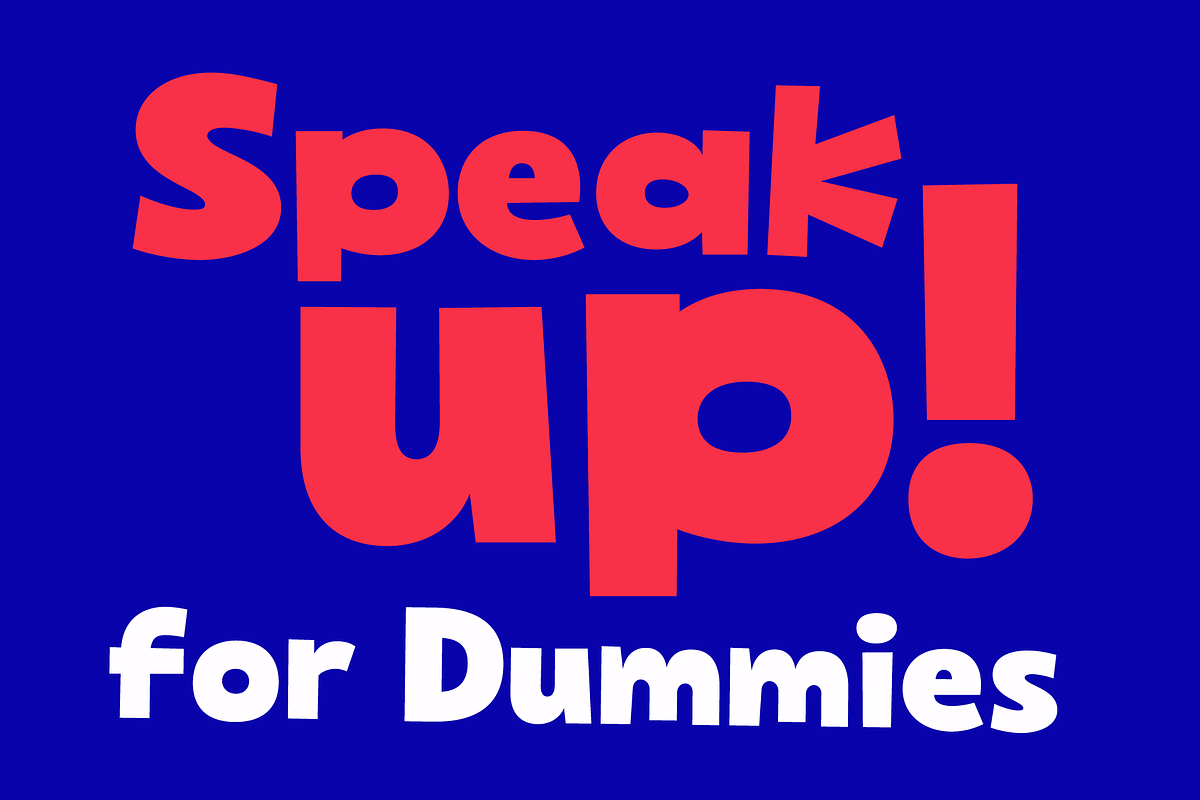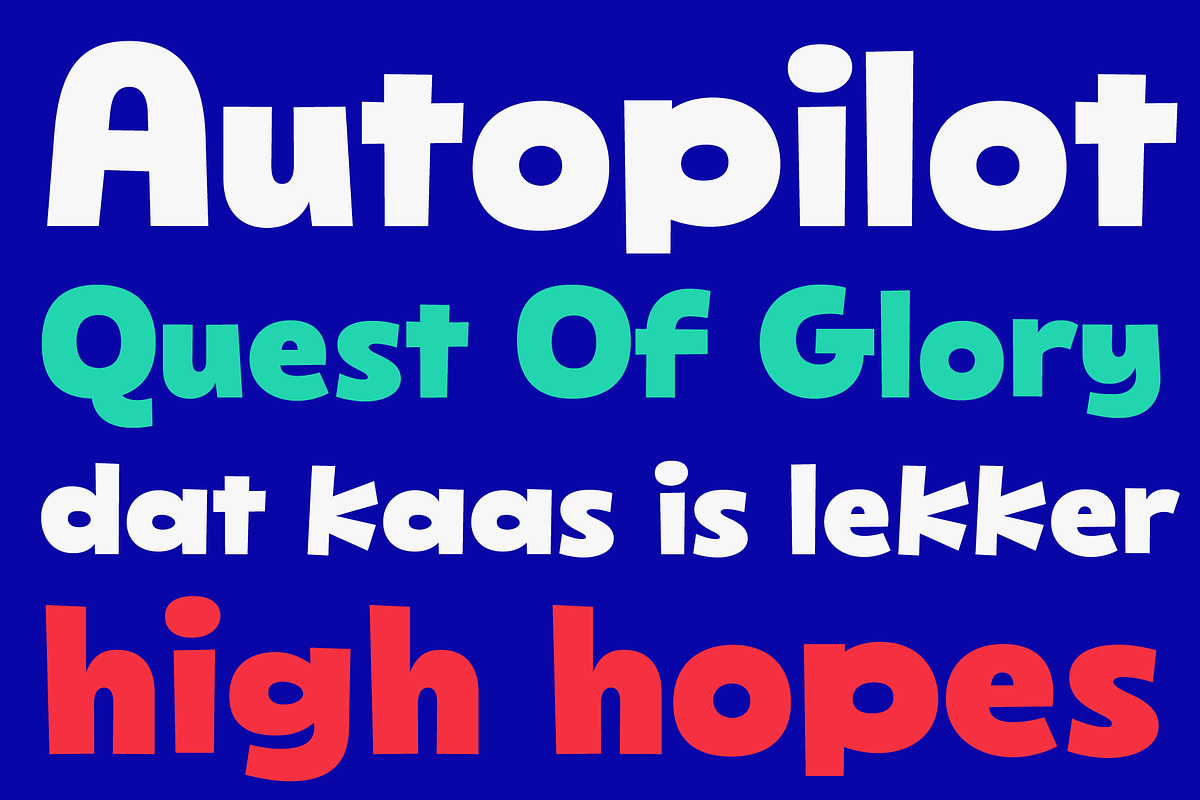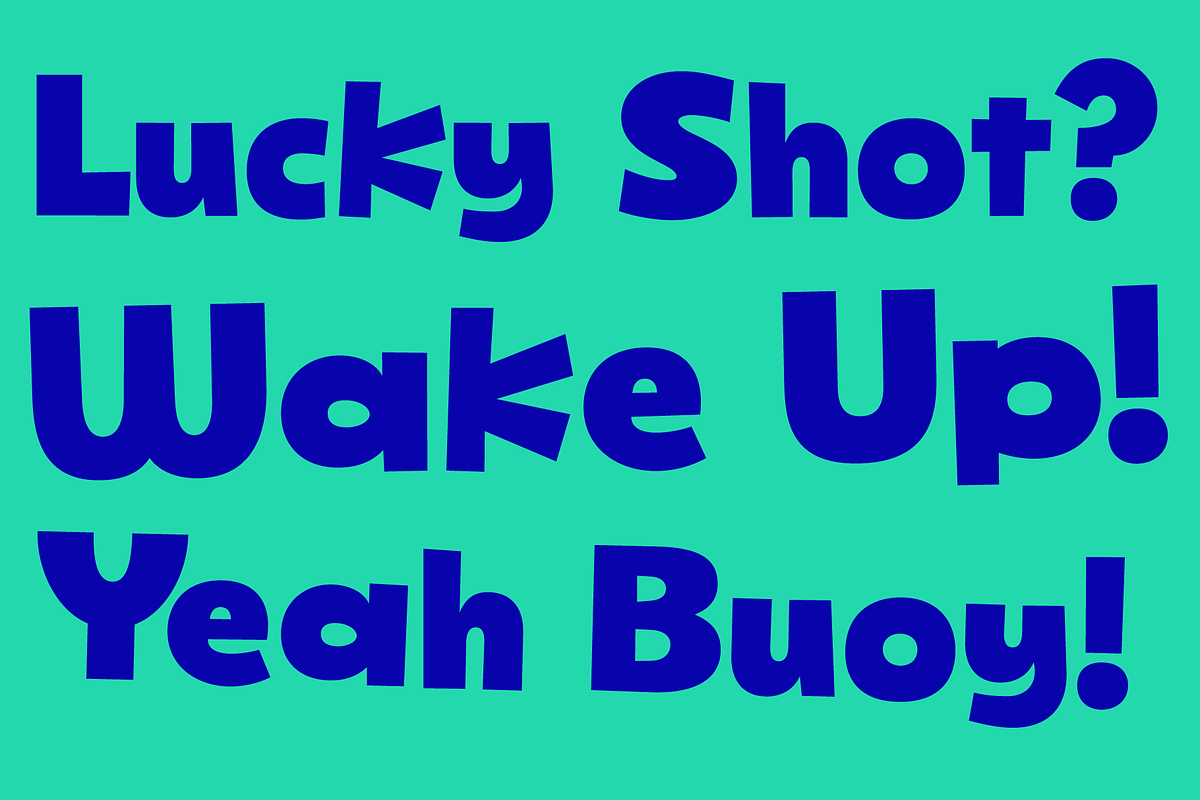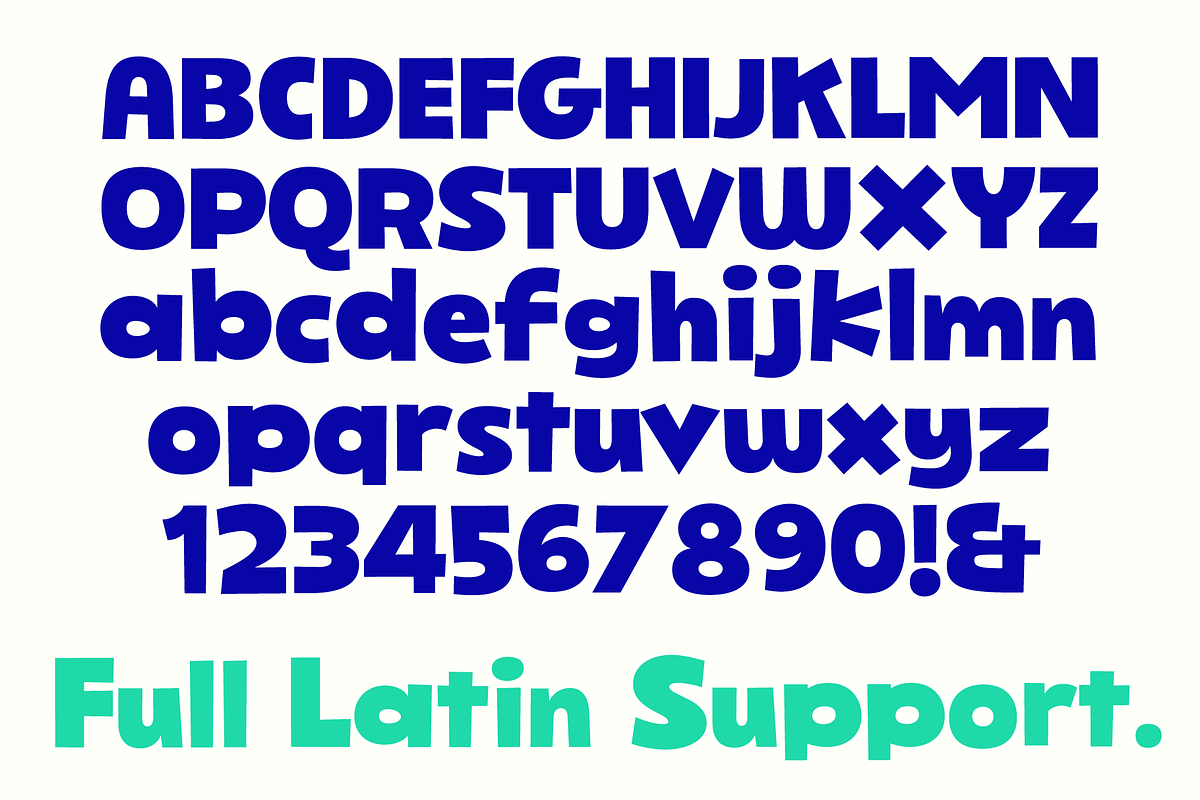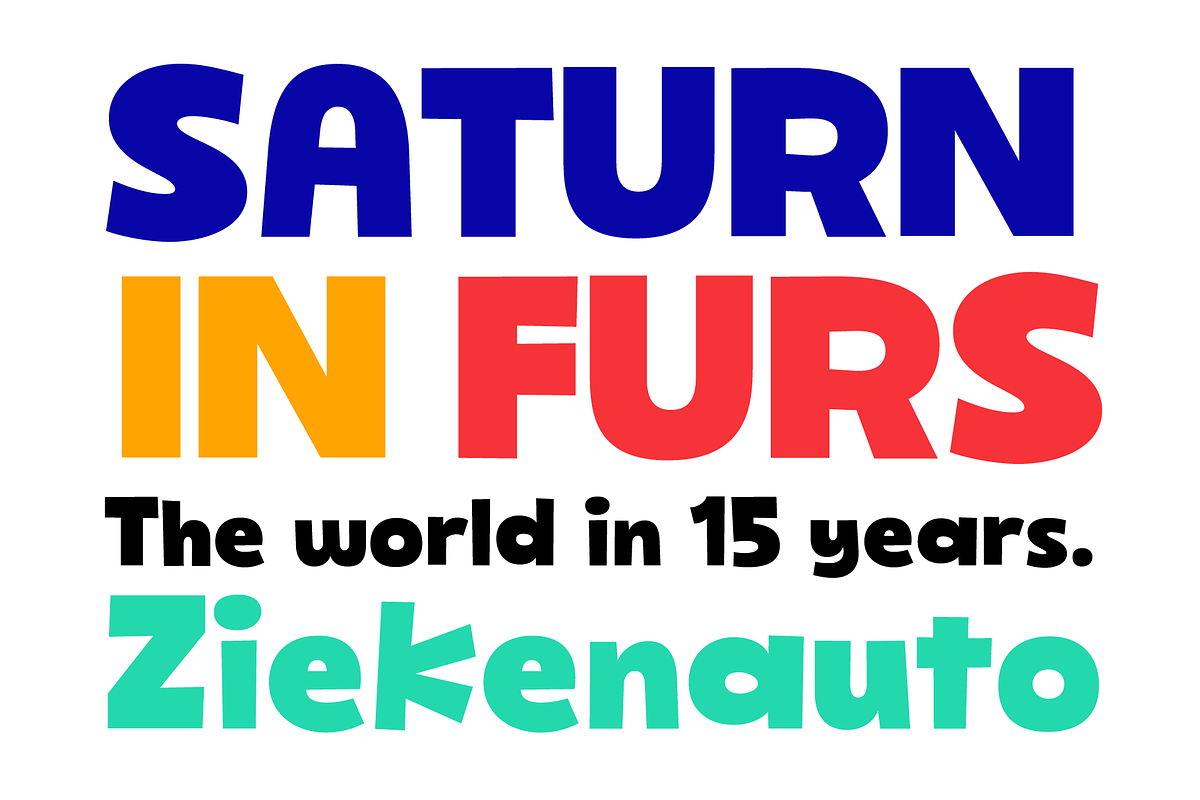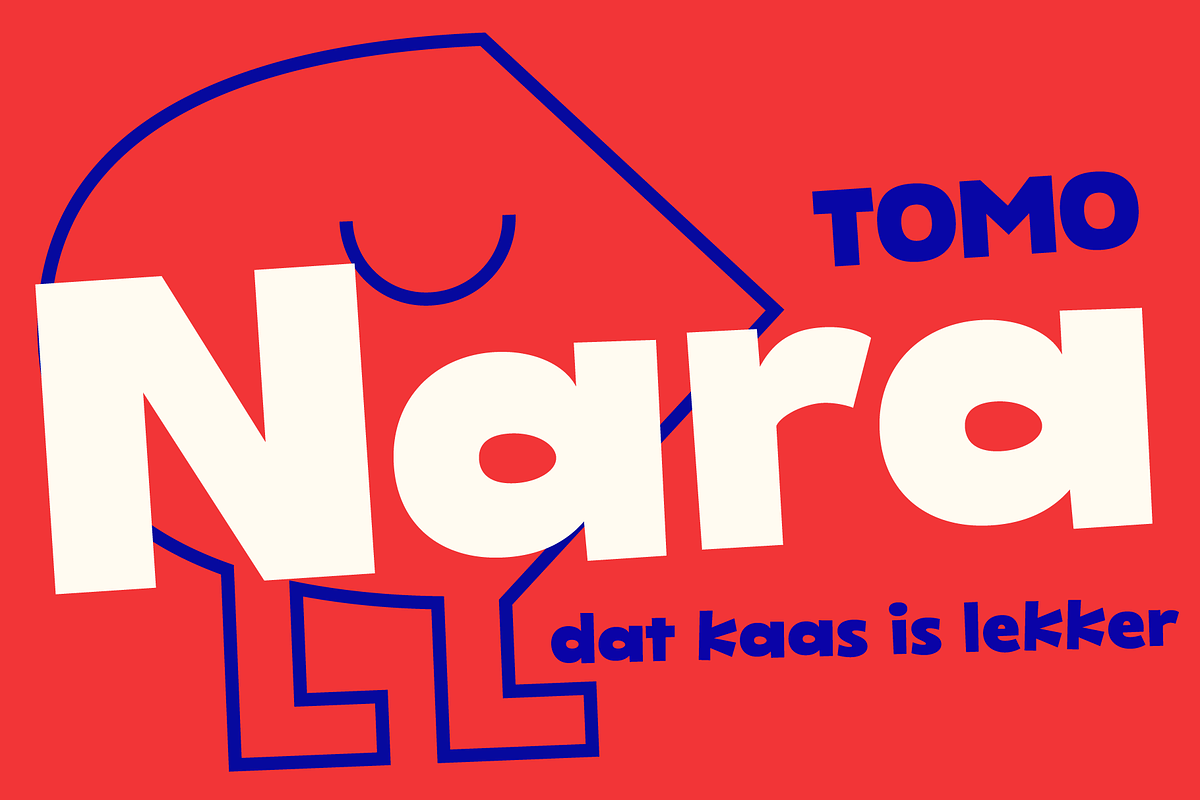
TOMO Nara
TOMO Nara adds plenty of joy to any logo, layout or UI. Geometric shapes and a funny look come together in this font – thus, Nara might be the perfect choice for toys, books, packaging, posters or even webapps! Let’s have some fun!